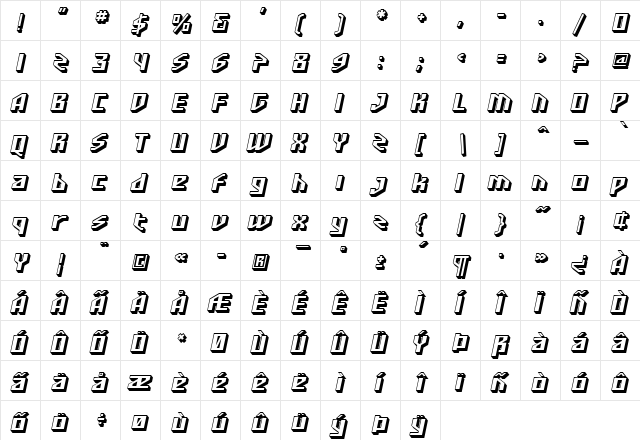
SF Funk Master Oblique
Oblique ·  ShyFonts Type Foundry ·
DesignerShyFonts Type Foundry
Design Context for SF Funk Master Typeface
SF Funk Master has an approachable, lighthearted character — its loose, expressive forms are well-suited to children's content, casual branding, and fun-first design. Its italic angle brings a sense of urgency and motion to the letterforms.
Great for children's books, toy packaging, family event branding, and casual consumer-facing design.
Font Pairing: Pairs well with a rounded or humanist sans for body copy, maintaining the friendly tone without relying on SF Funk Master to carry extended reading.
Pro Tip: Avoid using SF Funk Master for long passages of text — it works best for headlines, labels, and short calls to action.